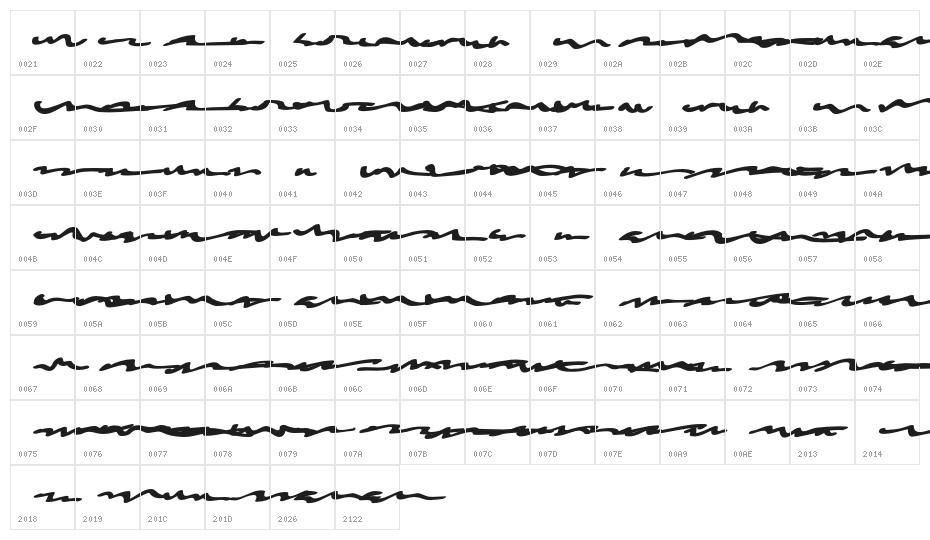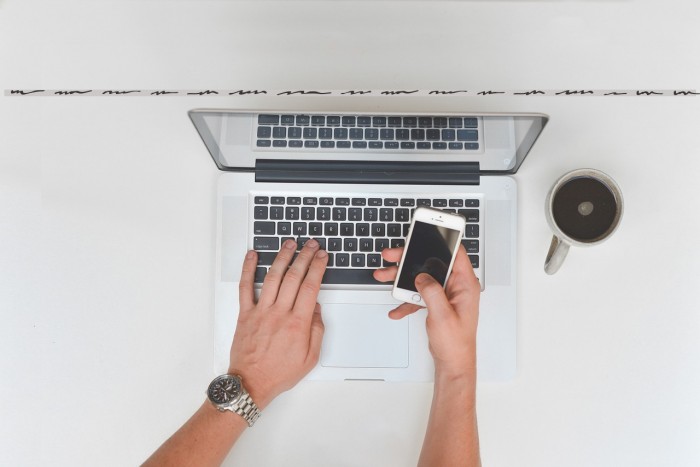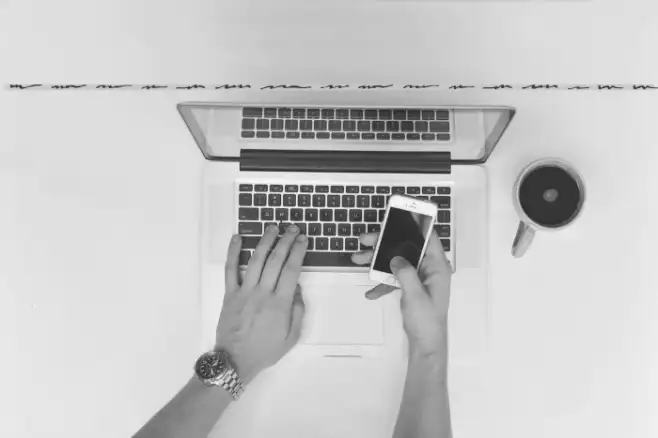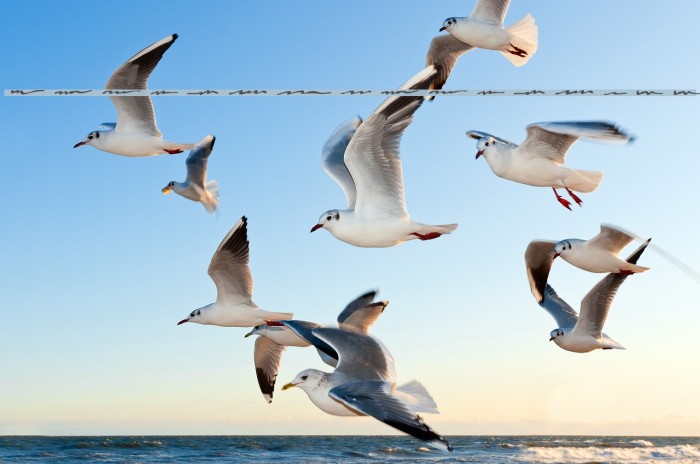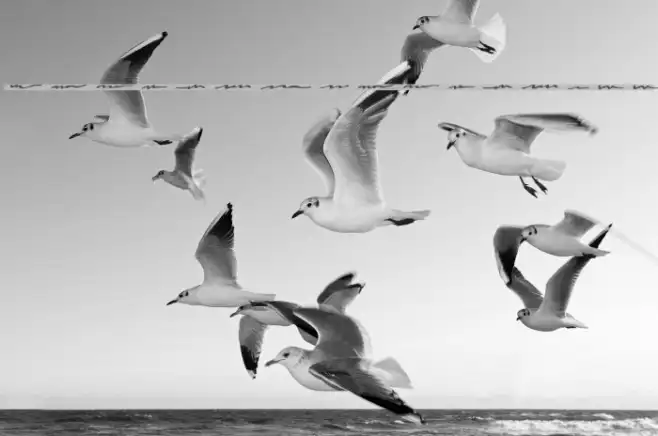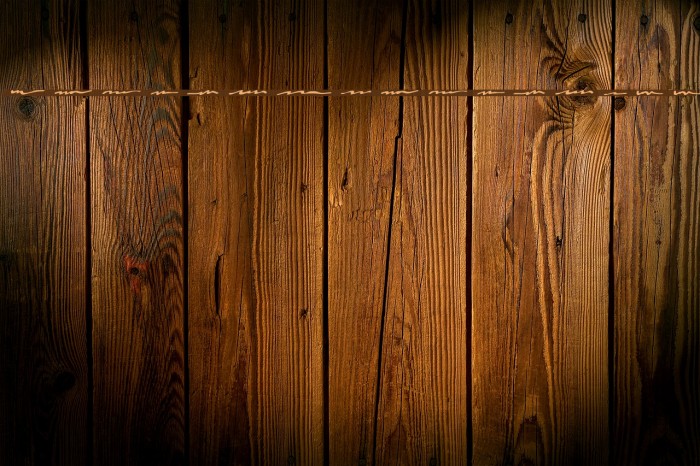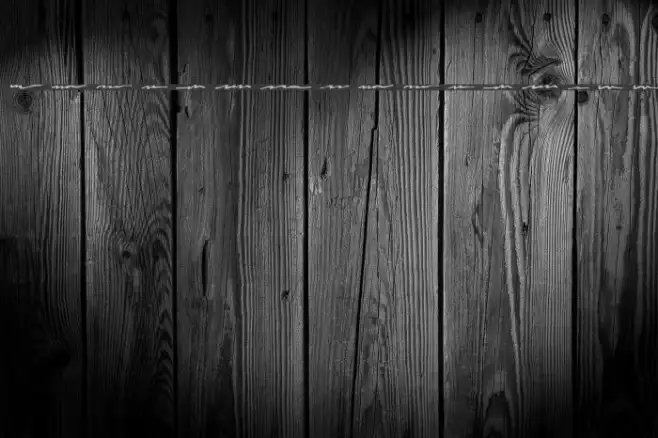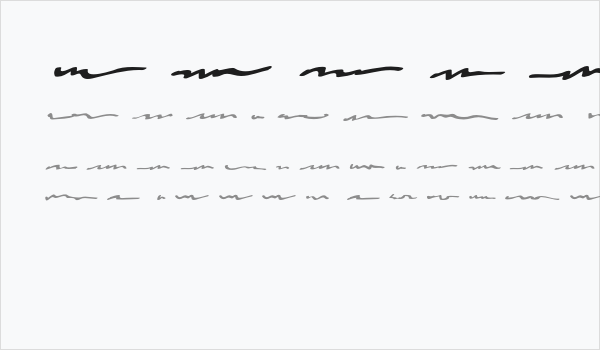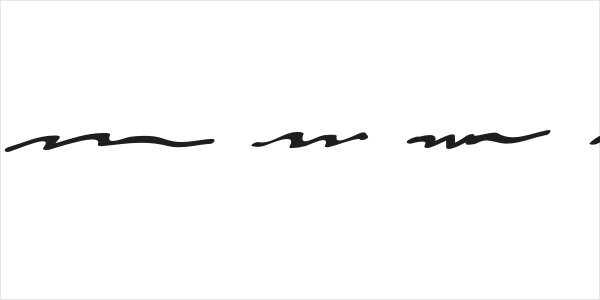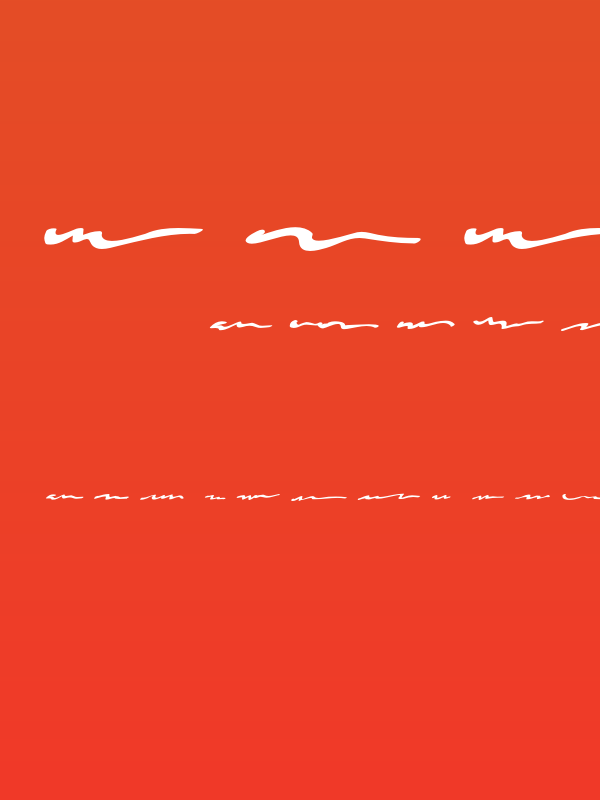
MumbleGrumbleIBB Font
This font features a highly stylized, cursive design that mimics the fluidity and spontaneity of handwritten script. The characters are interconnected with smooth, flowing lines, creating a sense of movement and elegance. The strokes vary in thickness, adding a dynamic quality to the text. This font captures the essence of personal handwriting, making it ideal for projects that require a personal touch. Its unique style can convey warmth and creativity, making it suitable for artistic and expressive applications.
Use CaseLogos, Invitations, Artistic projects
Proposed ProjectsIdeal for wedding invitations, personal letters, artistic projects, and branding that seeks a personal, creative touch.